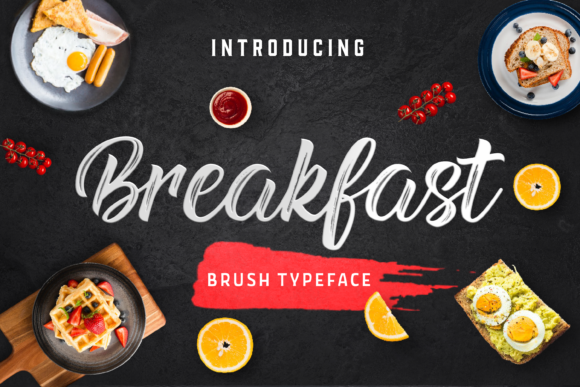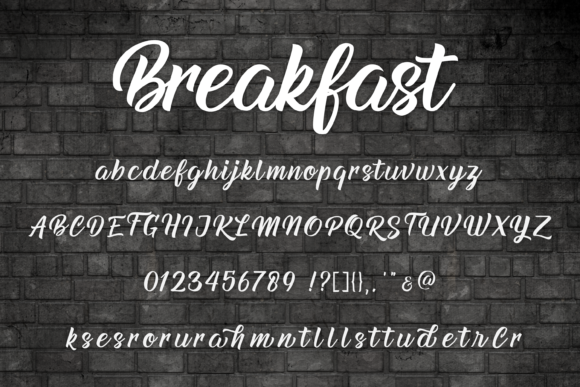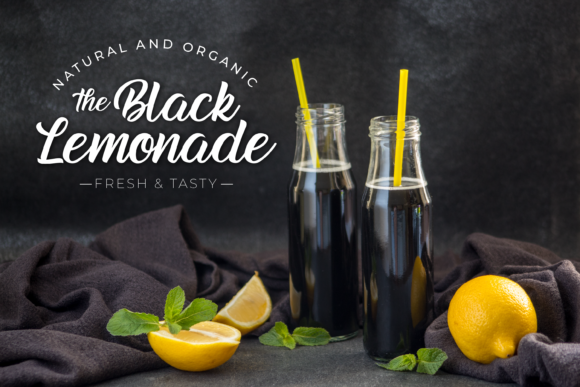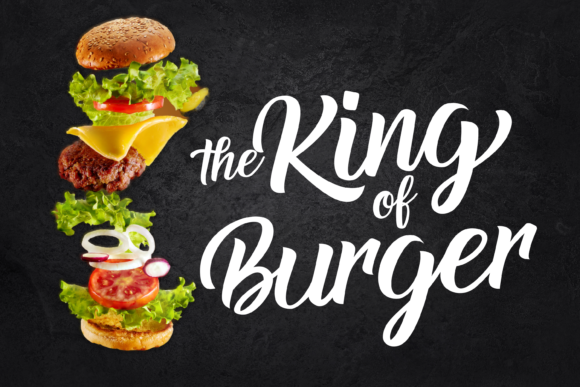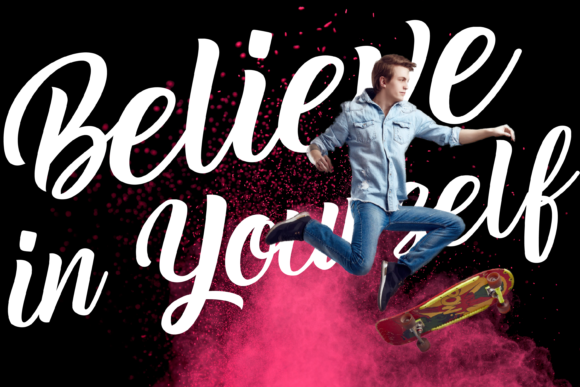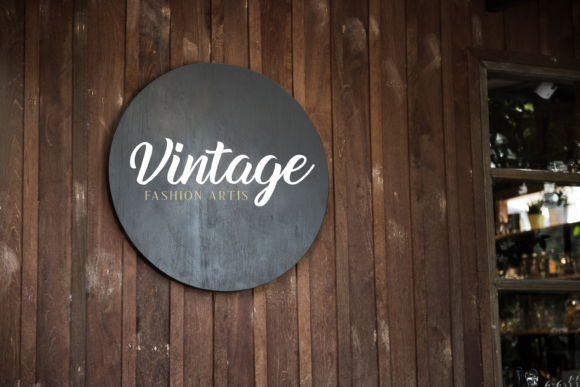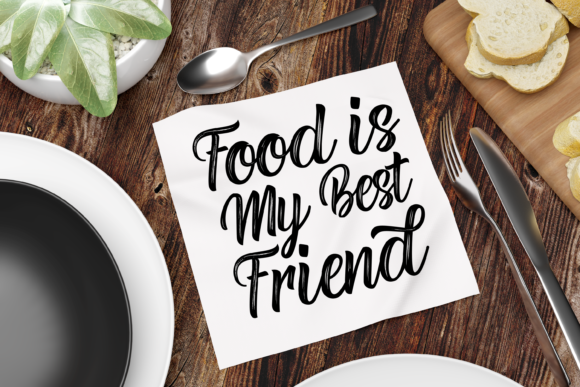
HomeScript FontsBreakfast Font Script Fonts Breakfast Font FacebookXPinterestWhatsApp Breakfast Font Poster 2 Breakfast Font Poster 3 Breakfast Font Poster 4 Breakfast Font Poster 5 Breakfast Font Poster 6 Breakfast Font Poster 7 Breakfast Font Poster 8 About Breakfast Font Breakfast is a fun and dynamic script that radiates authenticity. Fall in love with its timeless charm! DOWNLOAD NOW People also explored Agatha Font Floral Doodle Font Dienilla Font Fantasy Kids Font Slavery Font Love Mom Font The Stellar Font Twisting Lasso Font Christmas Santa Cart Font 281 0 TagsBreakfast Font Previous articleTimberly FontNext articleMoisture Ink Font LEAVE A REPLY Cancel reply Comment: Please enter your comment! Name:* Please enter your name here Email:* You have entered an incorrect email address! Please enter your email address here Website: Save my name, email, and website in this browser for the next time I comment. Personal Use Free Bellarin Personal Use Free Read more about this font Osaka Personal Use Free Read more about this font Good Luck Personal Use Free Read more about this font Spectrashell Personal Use Free Read more about this font BLOG To increase your work productivity, choose the most readable fonts. In today's fast-paced work environment, where digital communication and information consumption are integral to our daily routines, the choice of fonts can significantly impact... How to Cut Any Font on Cricut: Convert a Font to SVG (Free) Elegant Wedding Invitation Fonts – Handwritten & Script Fonts Best Fonts for YouTube Videos: Make Your Thumbnails Stand Out